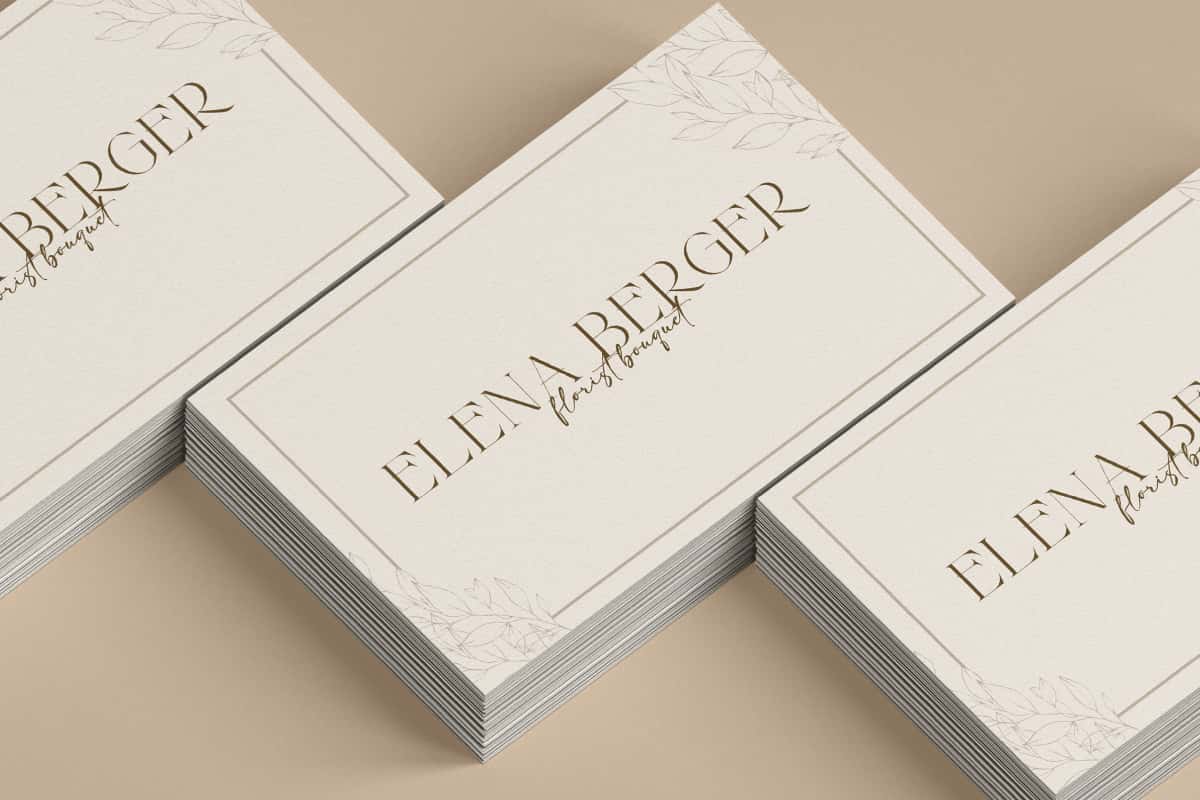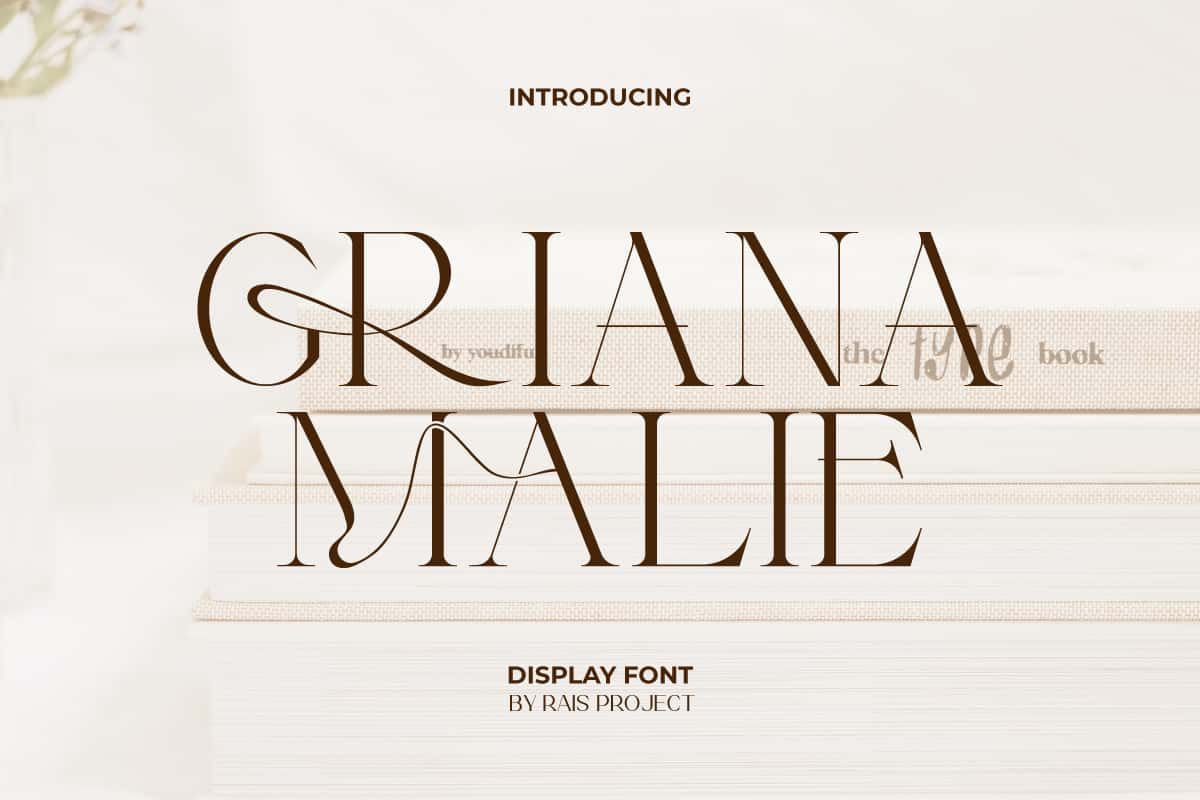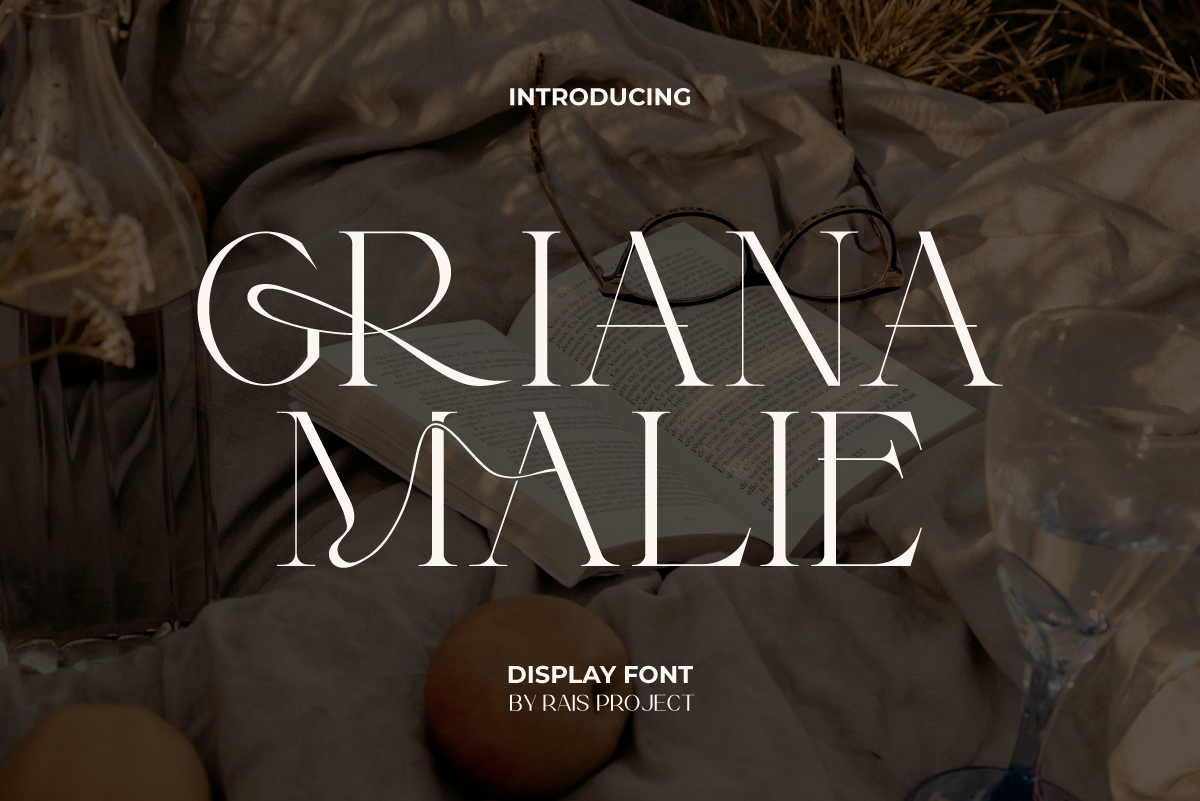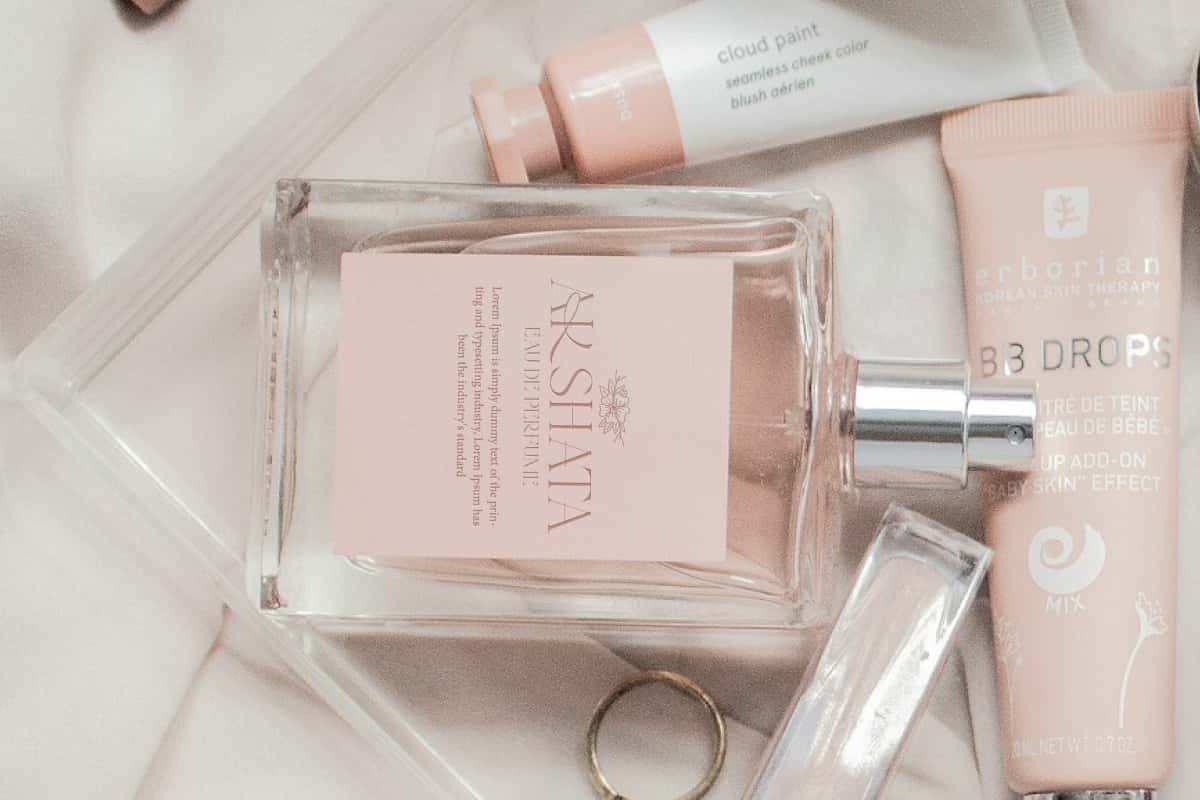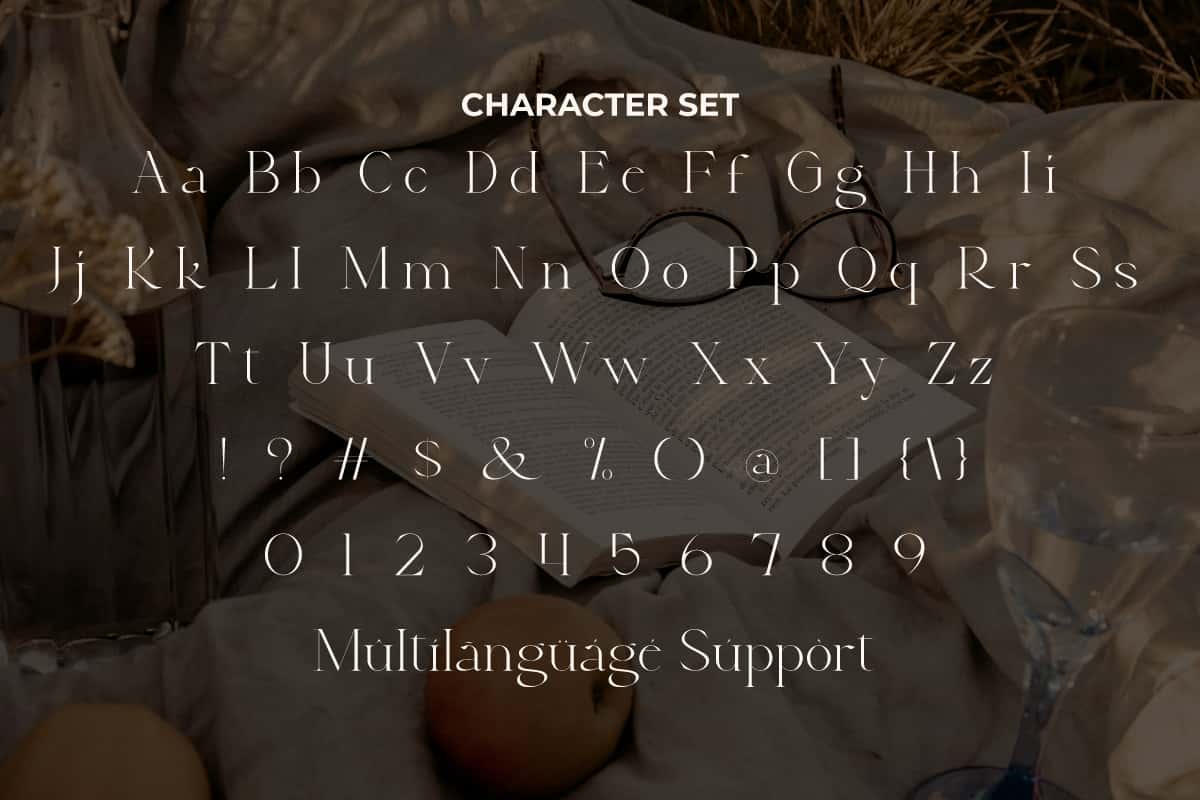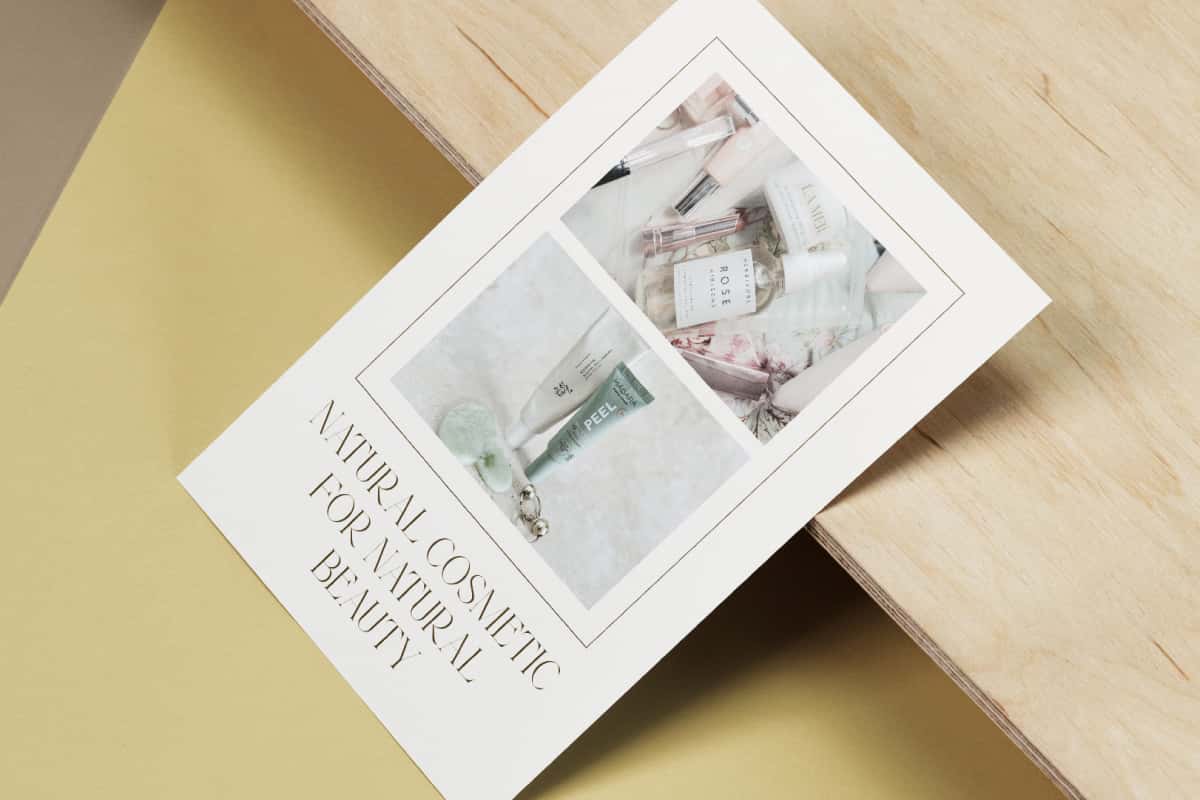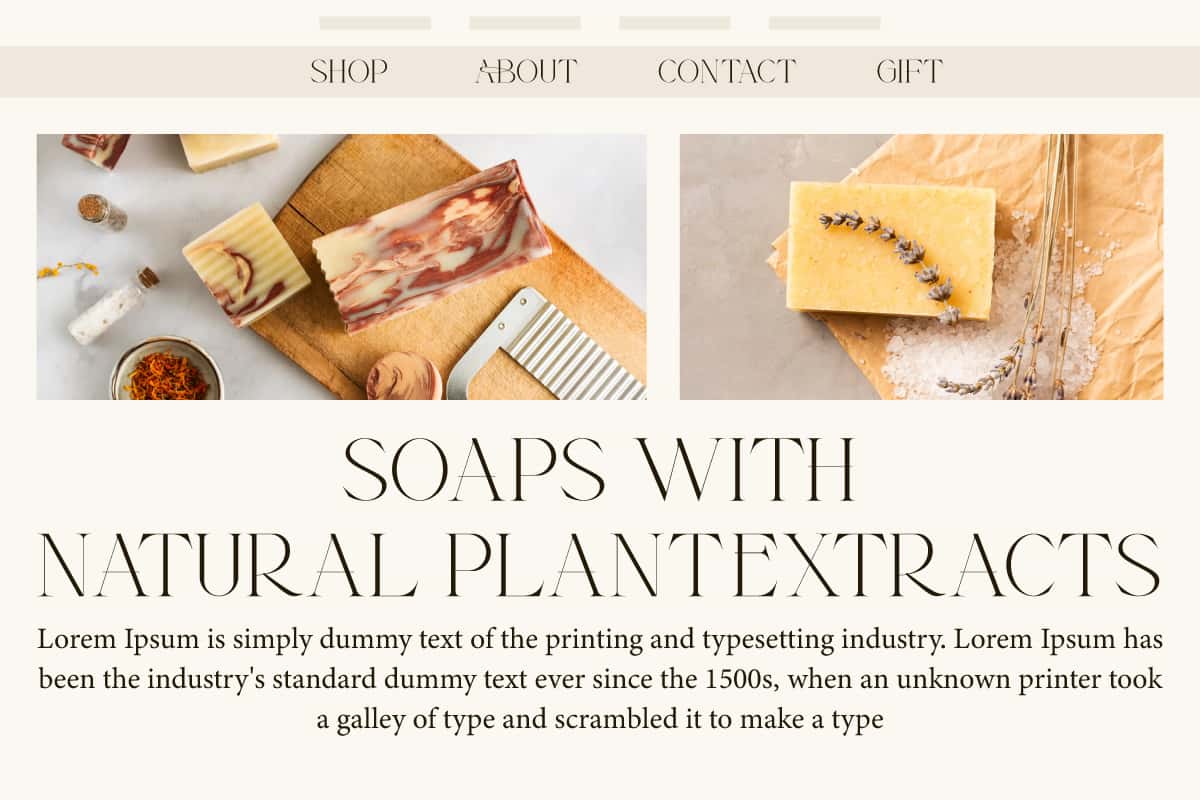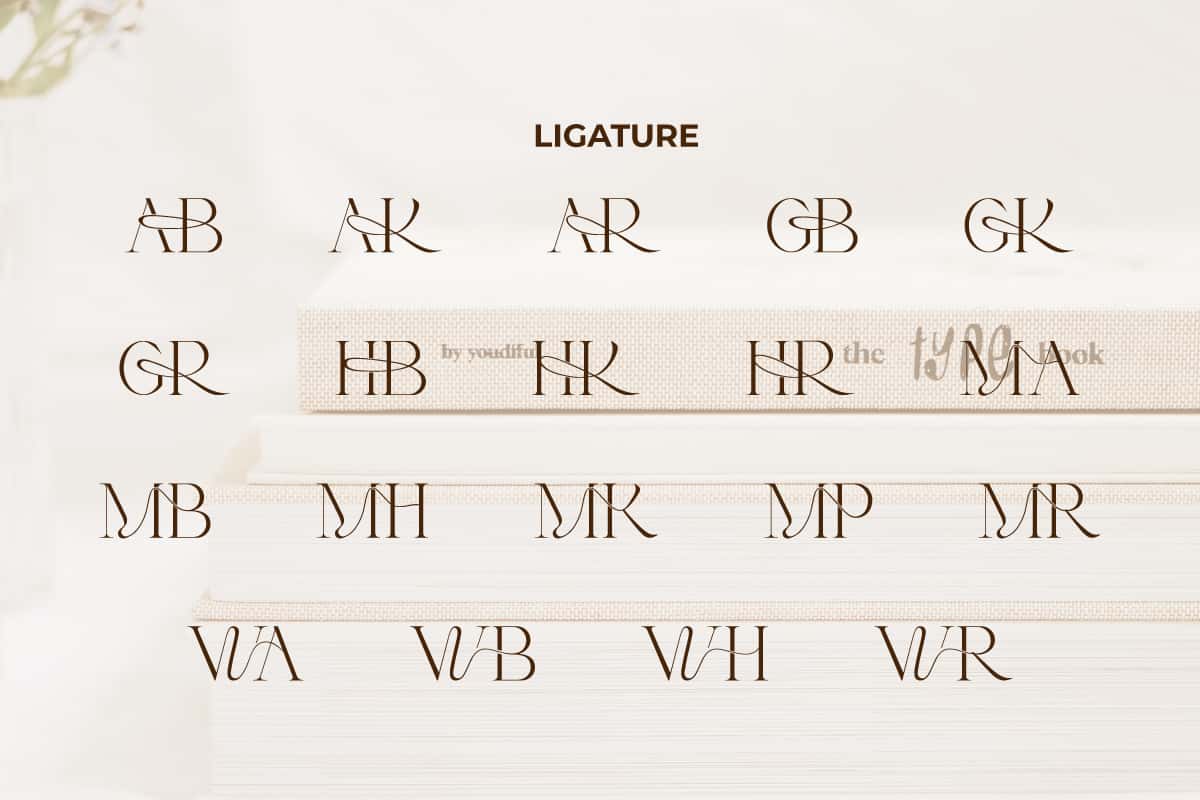
Griana Malie Display Font
Griana Malie Font is a elegant display font with serif touch. Try adding this font to make your design even more stunning!
Griana Malie Font is a modern style serif display font, created by RaisProject. This font has a unique character so it can add an attractive aesthetic to your design. It will look good on invitation, stationery, poster, custom design, product packaging, quotes, signage, brand image, advertisement, label, marketing material, website page, and more!
Introducing Griana Malie Display Font – a bold, creative, and stylish typeface crafted to make your designs stand out with personality and flair. Featuring modern shapes, strong curves, and a unique display style, Griana Malie is perfect for projects that need attention-grabbing typography. From logos and posters to branding, packaging, merchandise, and social media content, this font delivers striking visuals that captivate audiences instantly.
Griana Malie Display Font is designed for creatives who want more than just a basic typeface. Its artistic letterforms combine elegance with strength, making it versatile enough for fashion branding, music covers, event promotions, or digital campaigns. With its bold presence and high readability, Griana Malie works beautifully across both print and digital platforms.
Typography plays a vital role in shaping a brand’s identity, and Griana Malie Display Font is the perfect tool to give your projects a stylish, modern edge. Its contemporary look ensures your work is both professional and memorable, helping your brand or design leave a lasting impression.
Griana Malie Display Font includes a full set of ALL CAPS for Uppercase and Lowercase Letters, Numerals, and large range of Punctuation. The Ligature character of this font will give extra beauty and suitable for various industries, such as fashion, jewelry, cafe, event or wedding organizer, photography, printing, publishing, etc.